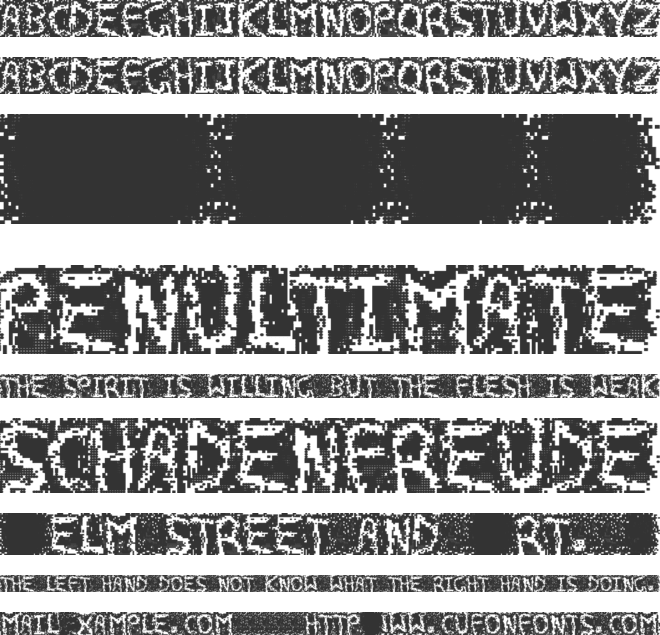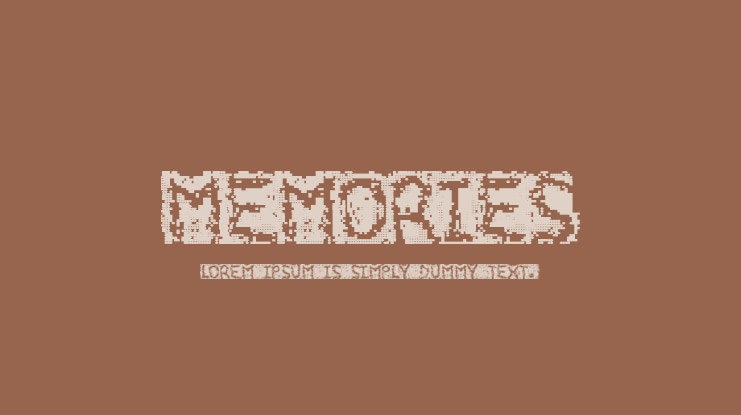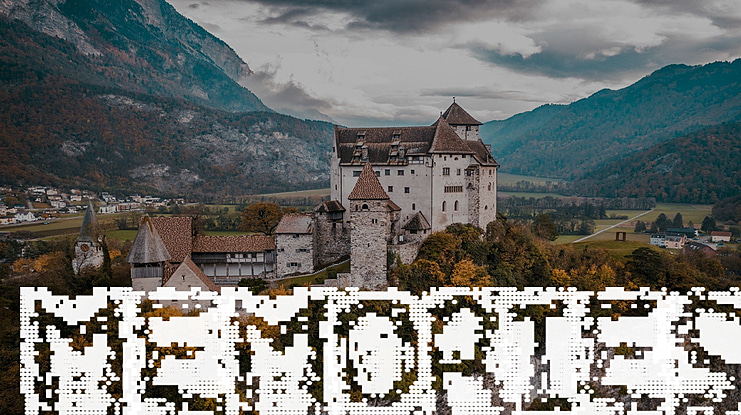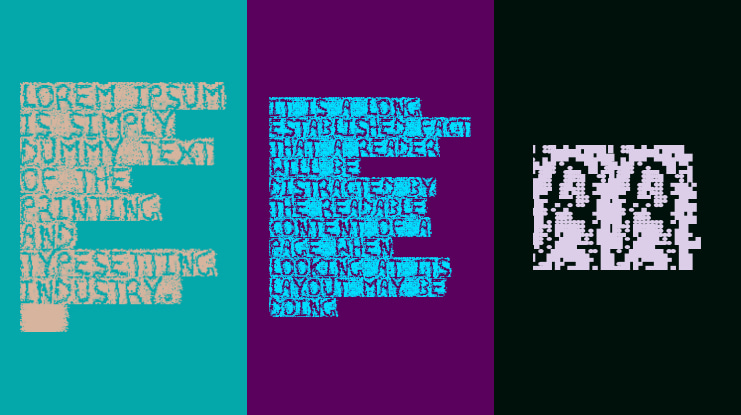
Memories Font
And so we writhed in wrinkles, Tiring effort, and Memories. This font is a powdery, dusty disintegration of pixels which somehow looks like the product of an imperfect human hand, but is also clearly digital. Created with fontstruct, featured in Handmade Competition ( http://fontstruct.fontshop.com/news/2010/10/19/handmade-competition-results/ )